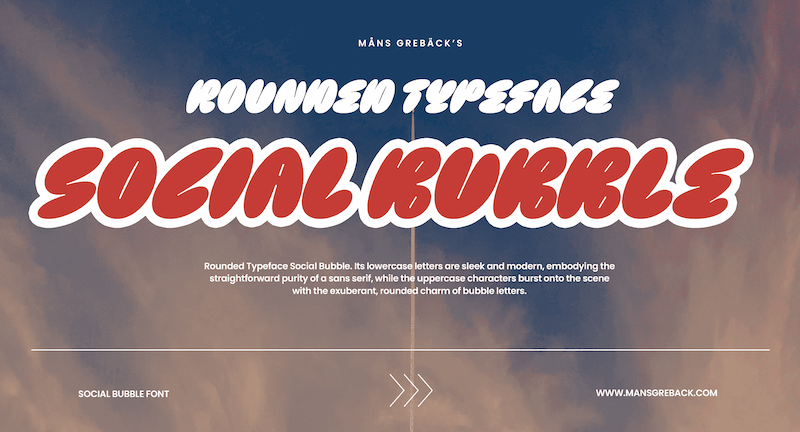
NOTE: This font is for PERSONAL USE ONLY! To purchase a commercial license, visit: http://mn.sg/social-bubble Social Bubble is a cute font that captures the essence of softness and friendliness, while presenting a bold statement reminiscent of graffiti art. For questions, please visit www.mansgreback.com/faq |